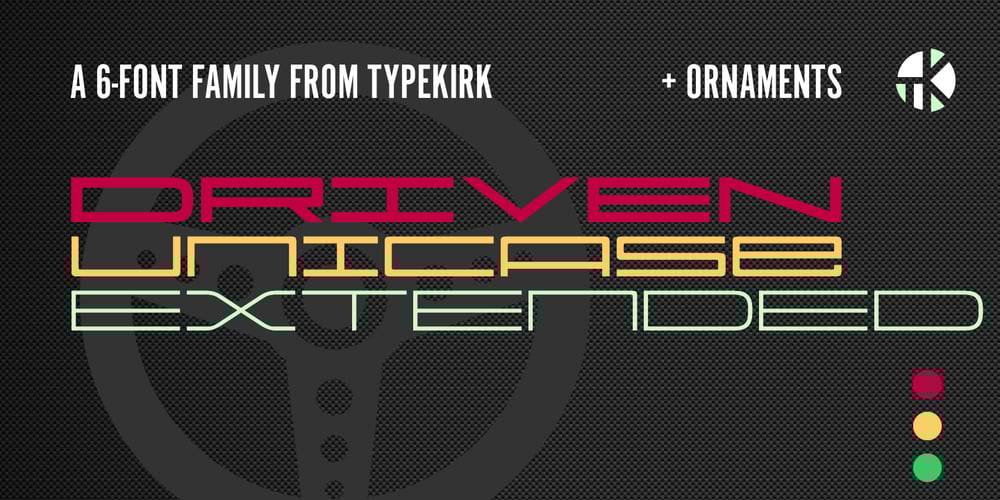
Driven Unicase Extended Font Family was designed by Kelly Hobkirk and published by Typekirk. Driven Unicase Extended contains 7 styles and family package options. Driven Unicase Extended is sleek and modern, yet hearkens back to the first advertising to catch my eye as a kid in the glorious 1970s – automobile ads that captured the thrill of speed, for sports cars I dreamed of experiencing. Driven is available in 6 individual weights or as a family of 6 fonts, plus ornaments. Includes accented characters supporting for many European languages.